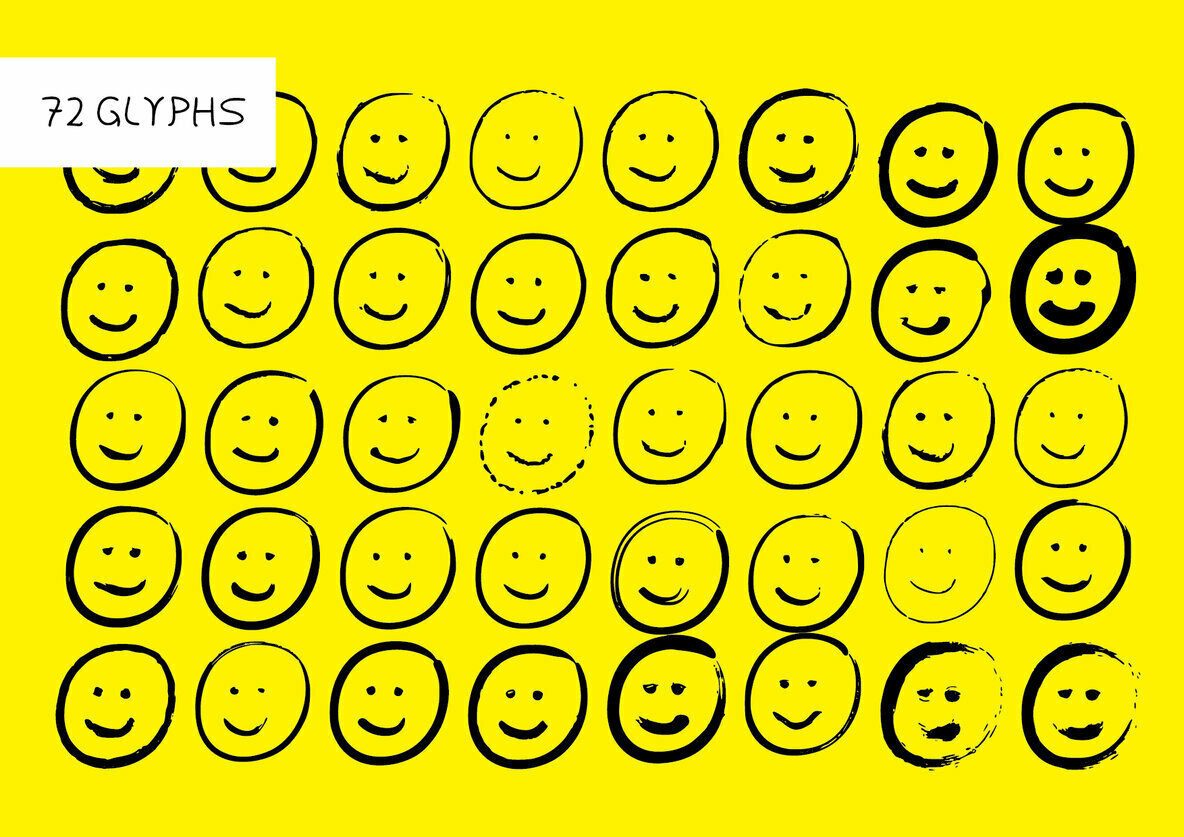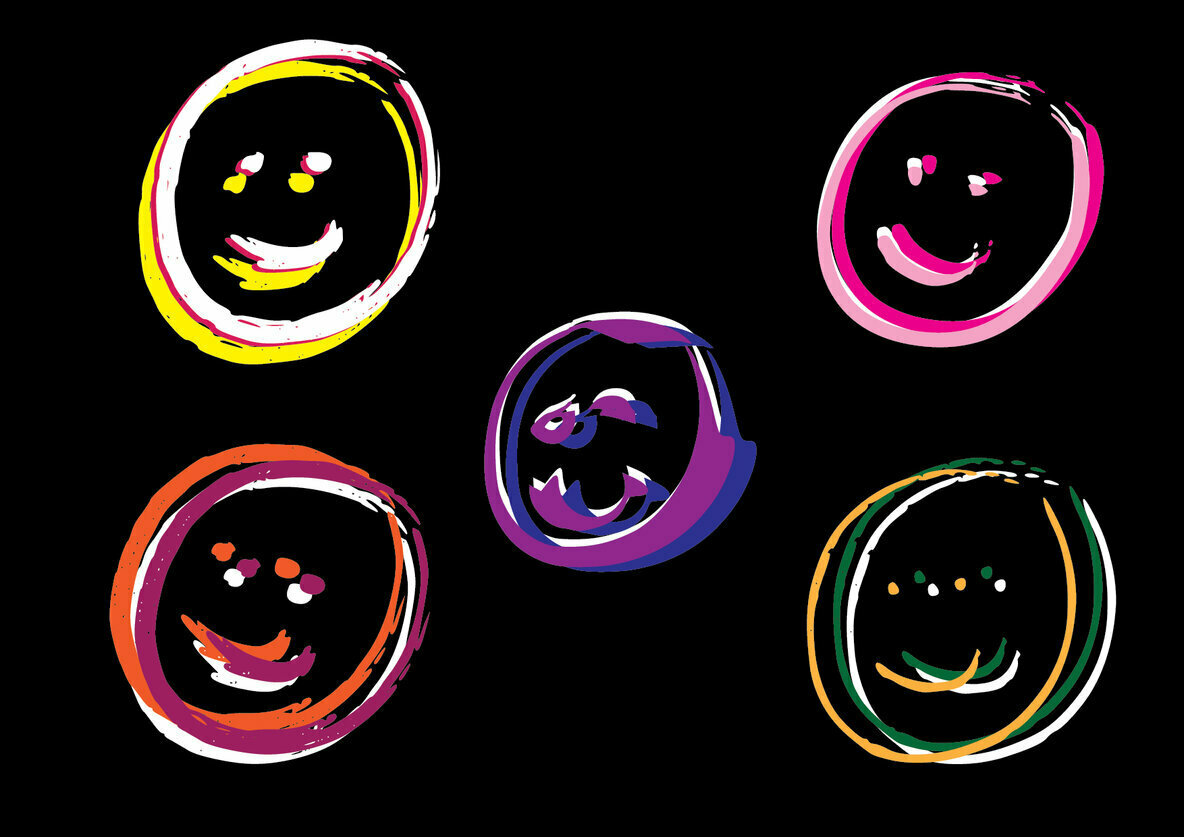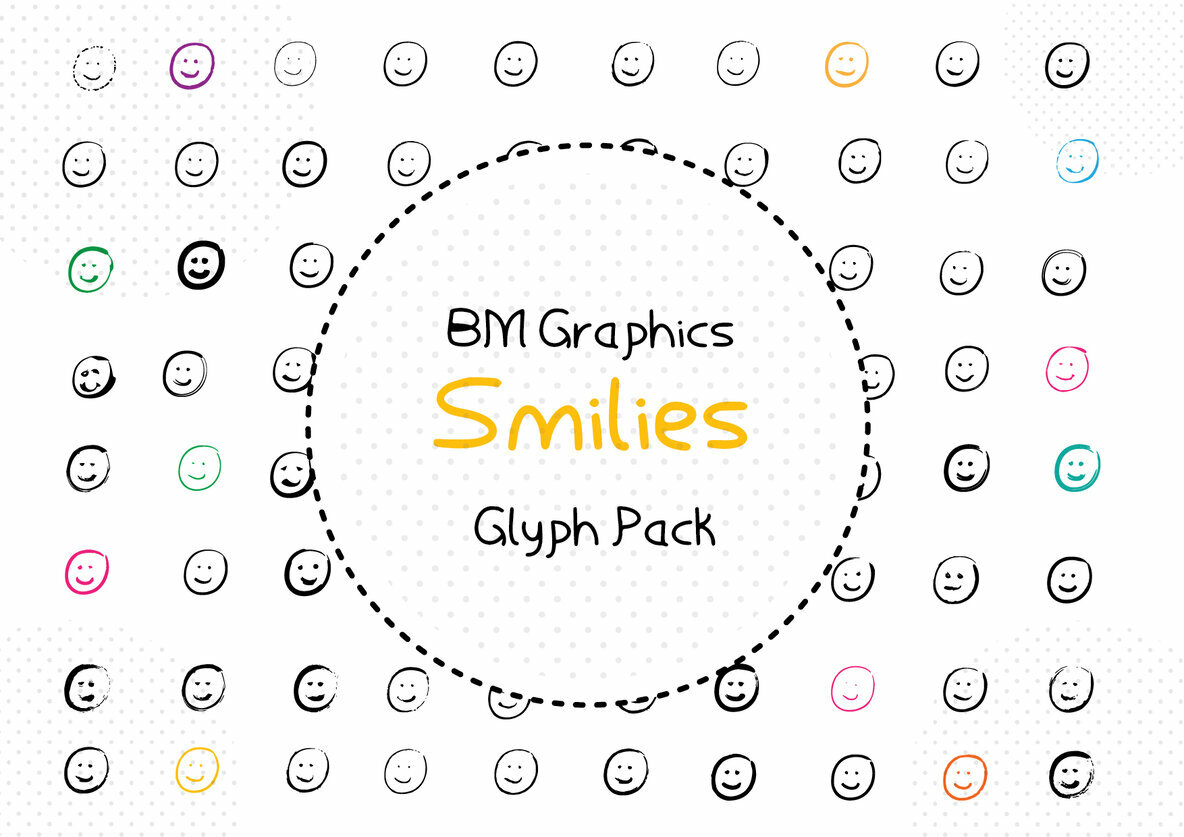
BM Graphics - Smilies Font
BM Graphics Smilies
BM Graphics - Smilies is a stunning dingbats font that combines 72 Glyphs. Use it for any design project that requires a hand drawn look and feel, there are so many to choose from!